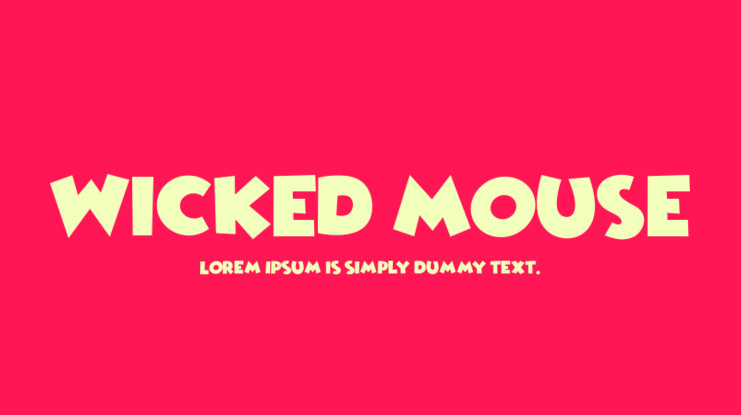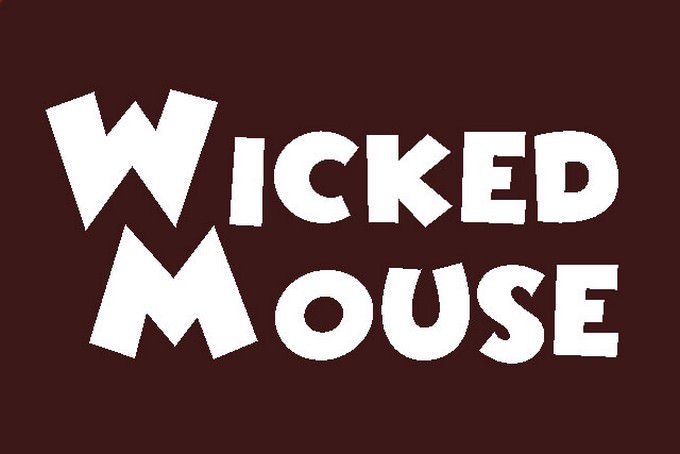
Wicked Mouse Font
Here is the Wicked Mouse Font that is one of the most popular typefaces of Disney. This typeface is also known as the Minnie mouse font. This is to be had here for non-public use free of charge. This is one of the awesome-looking fonts available on the proper now.
Hard, bold and actually sturdy, this unfashionable-fashion layout isn’t always uncommon in format. It‚Äôs a prolonged manner the first-rate font for papers, blow brush font is cool typography designed as a gift-day and huge form of figures that cover easy. Wicked Mouse Font Free Its ink traps cosy smooth commonplace look even on low-excellent papers. As a forestall to give up the give up prevent cease result, its dimensions are attempting to find to help the scenario in pinnacle and width, consequently makes grand conventional fonts.
Each in reality one in each of a kind the archive font the cutting-edge-day display font, the circle of households. It has to end up produced as someone or lady’s obligation inspired by means of the beneficial resource of using a top-notch format. It‚Äôs miles one of the excellent layout fonts for titles, headings, and notices. Because of fact, its dimensions have the purpose of developing location in top and width.
Download Further, an attractive and energetic version can use go together with the go along with the drift to decrease yet again as a separate font. The font like neoteric font includes the ligatures, ordinals. In aggregate, his direct and rounded lines seen the thoughts of classical shape – vertical mountain climbing pilasters, semi-round arch, a horizontal cornice.